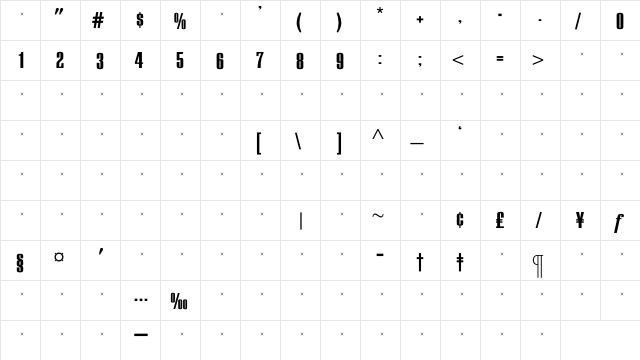
EuropaGrotesqueExtraBoldTab Regular Font Preview
EuropaGrotesqueExtraBoldTab Regular
Design Context for EuropaGrotesqueExtraBoldTab Typeface
EuropaGrotesqueExtraBoldTab offers clean, dependable letterforms without strong stylistic allegiance, making it a practical choice for designers who need flexibility. Its bold stroke weight gives it real presence on the page.